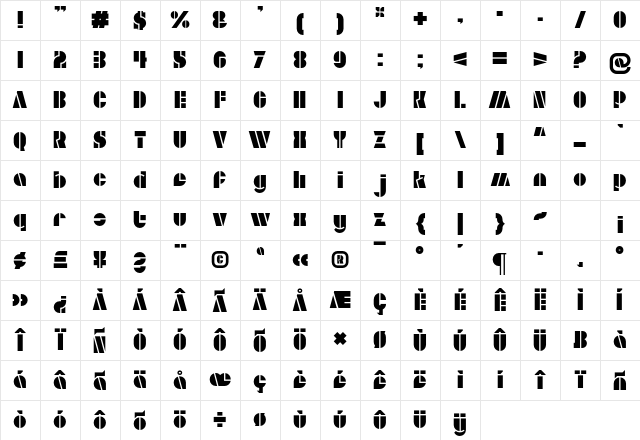
Complete Aldo Open glyph index. Displaying only characters natively supported by Aldo Open font.
Aldo is a composed and adaptable typeface that performs quietly and consistently across a wide range of design contexts.